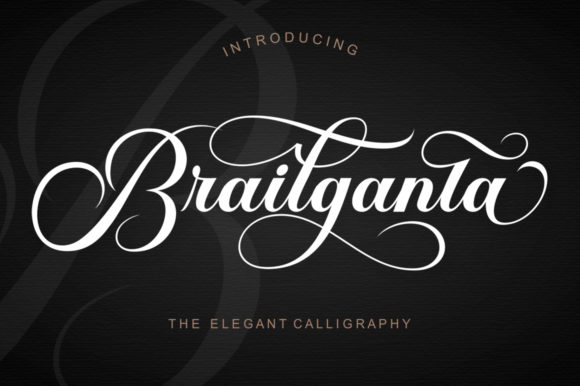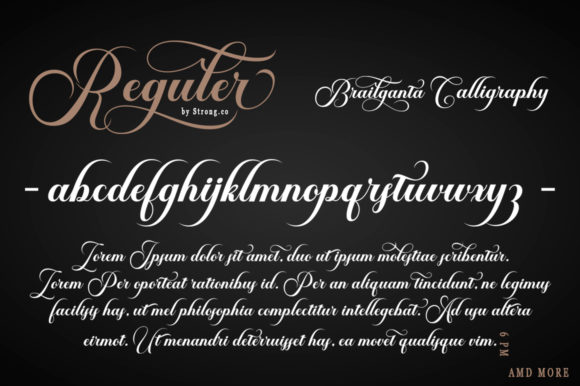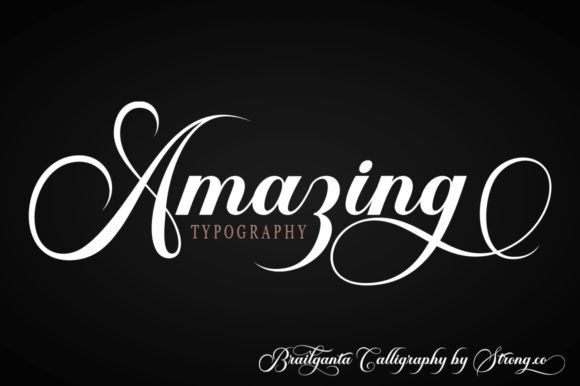
Brailganta Script Font
About the Brailganta Script Font
From logos to headlines, the Brailganta Script Font is the perfect choice for making a lasting impression. Brailganta Script is a stylish and delicate script font. It is PUA encoded which means you can access all of the glyphs and swashes with ease! Add it confidently to your projects, and you will love the results.
Brailganta Script’s delicate nature makes it ideal for projects requiring a touch of elegance, such as wedding invitations, logos for boutique brands, or short-form text on packaging. Its stylish swashes add a touch of personality to headers and short quotes. However, avoid using it for body text or large blocks of content; its intricacy would hinder readability.
This script font pairs well with clean sans-serif fonts like Lato or Open Sans for a balanced design, or with a more geometric sans-serif like Montserrat for a modern feel. Consider pairing it with a subtle serif like Merriweather for a classic, sophisticated look.
The overall personality of Brailganta Script is elegant and refined, yet approachable. Its delicate strokes convey a sense of sophistication without appearing overly formal.
Brailganta Script Font Usage Examples
Brailganta Script Font Example